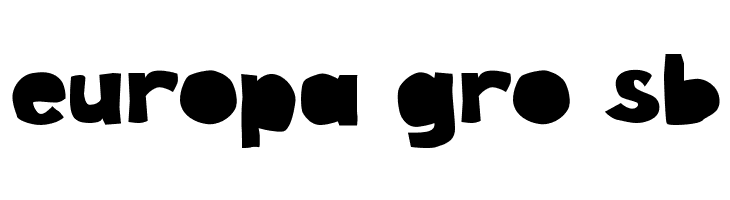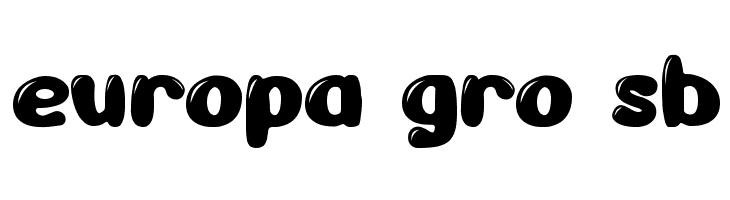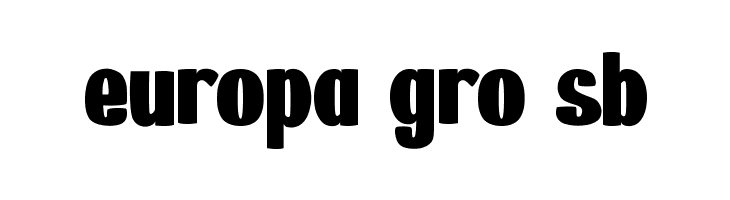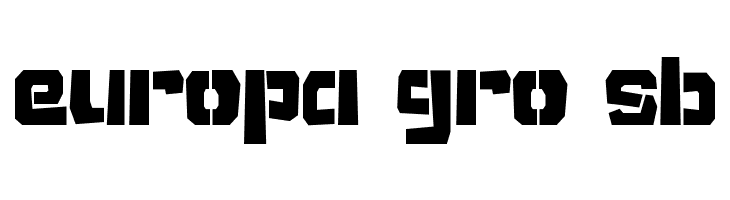
( Fonts by Pinisiart )
A playful, bold, hand-drawn font with a whimsical and informal style.
( Fonts by Pinisiart )
A bold, playful font with a hand-cut, whimsical style.
( Fonts by Skytroopas )
A playful and bold font with quirky, uneven strokes.
( Fonts by Pinisiart )
A playful, bold font with rounded, bubble-like characters ideal for fun, decorative projects.
( Fonts by Tokopress )
A bold, playful font with thick, rounded strokes and a whimsical touch.
( Fonts by Pinisiart )
A playful, bold font with rounded characters and a whimsical style.
( Fonts by Tokopress )
A bold, playful font with rounded edges and a whimsical style.
( Fonts by idebareng )
A playful, bold font with rounded, chunky letters and a whimsical style.
( Fonts by Pinisiart )
A bold, geometric font with sharp, angular characters.
( Fonts by Modestype Studio )
A bold, playful font with a hand-drawn, dynamic style.